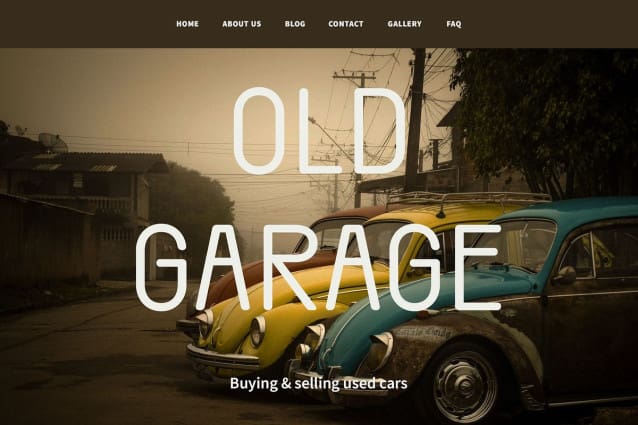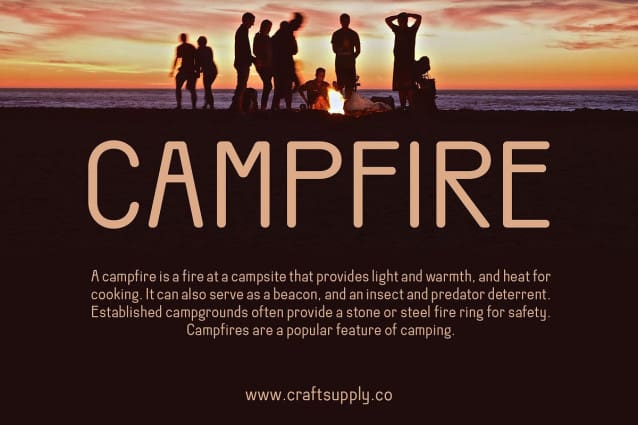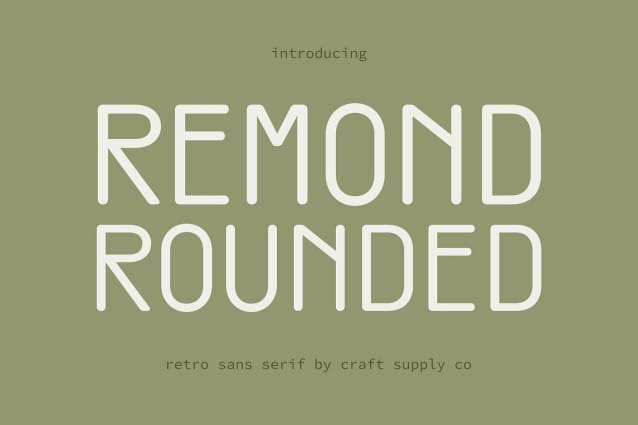
Remond Rounded Font
Remond Rounded Font: The Typeface with a Friendly Appeal. Soft and Condensed Design Remond Rounded boasts a soft and condensed sans serif design, embodying an inviting and amicable aesthetic that’s perfect for a wide array of applications.
Low Contrast Appearance With its low-contrast appearance, This font ensures optimal legibility and readability across various platforms and sizes, making it an ideal choice for both digital and print projects.
Radiating Friendliness Radiating an aura of friendliness, This font welcomes readers with its rounded edges and gentle curves, evoking a sense of warmth and approachability.
Versatility in Application Versatile in nature, This font is well-suited for a multitude of projects, ranging from web design and branding to packaging and editorial work. Its adaptable demeanor makes it a go-to choice for designers seeking a typeface that can effortlessly convey a friendly and welcoming vibe.
Friendly Typeface This font stands out as a versatile and inviting font option, striking the perfect balance between softness, legibility, and adaptability. Whether it’s enhancing the user experience on a website or adding charm to a product label, this typeface brings a touch of friendliness to every design endeavor.